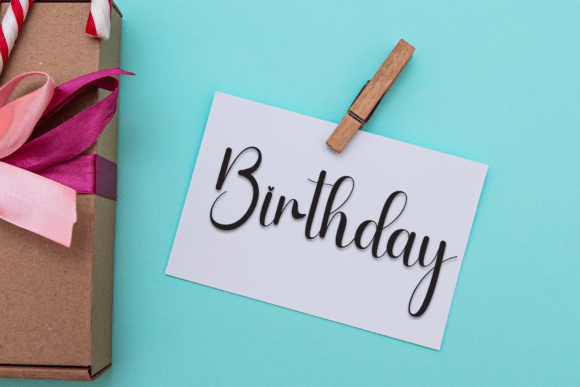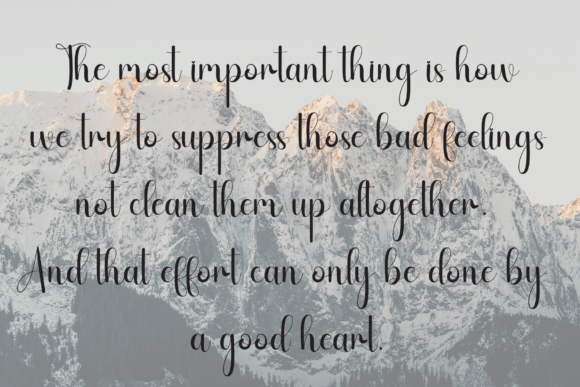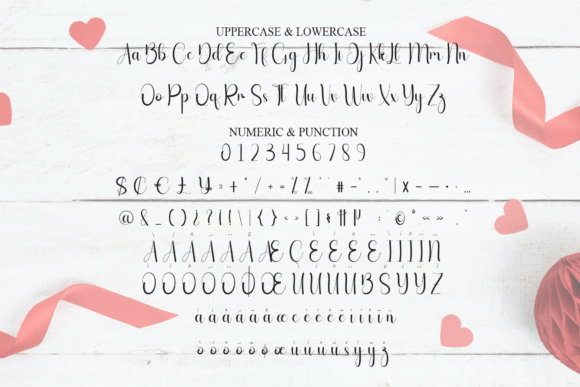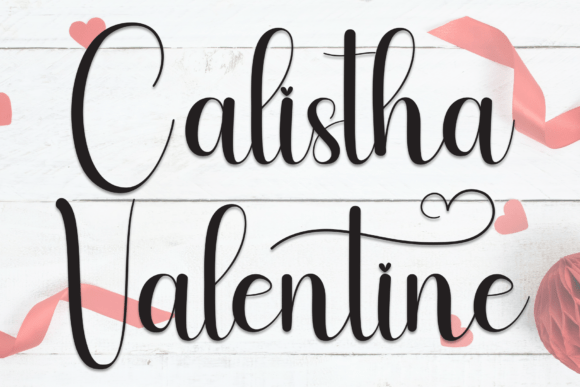
As soon as I laid eyes on Calistha Valentine, I knew I had found what I was looking for. This stylish handwritten script font radiates elegance and fluidity, with smooth, flowing strokes that create a natural and sophisticated feel. It’s perfect for branding, invitations, and creative projects that require a personal, artistic touch.
What I Love About Calistha Valentine
• ✨ Elegant and sophisticated feel that’s perfect for luxury brands
• ✅ Smooth, flowing strokes that create a natural look
• 💫 Highly versatile and can be used for a variety of design projects
• 🎨 Supports OpenType features, glyphs, and stylistic alternates
While Calistha Valentine is an exceptional font, it’s not without its quirks. For instance:
• 🤔 Some users may find the font a bit too ornate for very small text sizes
• ⚠️ Limited use of uppercase letters, which may require creative workarounds
The Story Behind Calistha Valentine
While the origins of Calistha Valentine are shrouded in mystery, it’s clear that the font was designed with elegance and sophistication in mind. The creator’s inspiration likely came from the world of high-end fashion and luxury branding, where a distinctive and refined aesthetic is paramount. Whether or not the font was designed with a specific client or project in mind, it’s clear that Calistha Valentine is a labor of love that brings a touch of class to any design.
Font Name Calistha Valentine Font
Author Robbots stores
Q: What is Calistha Valentine and what is it used for?
Calistha Valentine is a stylish handwritten script font that’s perfect for branding, invitations, and creative projects that require a personal, artistic touch.
Q: Is Calistha Valentine a difficult font to read?
Calistha Valentine is a script font, which can sometimes make it more challenging to read, especially at small text sizes. However, its elegant and flowing strokes make it perfect for display text and headlines.